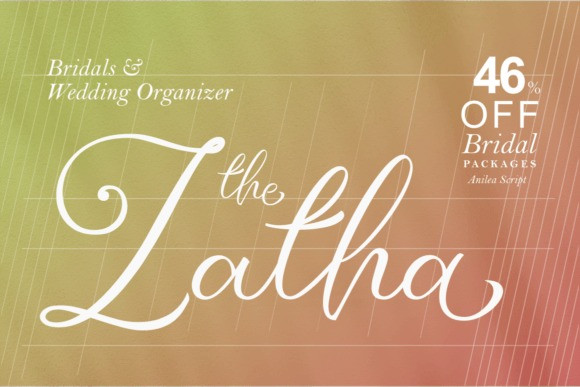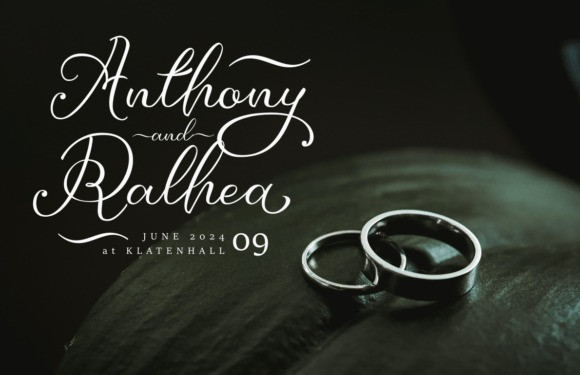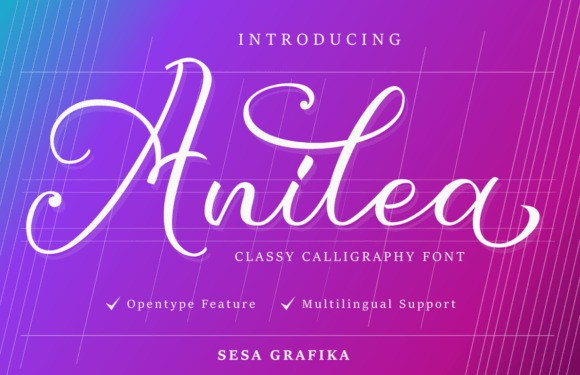
Anilea Calligraphy Font
Anilea Calligraphy Font is a delicate, elegant, and flowing handwritten font perfect for your favorite projects. Fall in love with its incredibly distinct and timeless style, and use it to create spectacular designs!
Elevate your wedding and branding projects with the enchanting “Anilea Script Font.” This script font seamlessly blends elegance and romance, making it the perfect choice for wedding invitations, heartfelt messages, and distinctive logo branding.
Whether you’re crafting a wedding masterpiece or building a brand that speaks volumes about love and connection, the Anilea Script Font is your artistic. Imbue your projects with the essence of romance and refinement—choose Anilea Script Font for a truly captivating design experience!